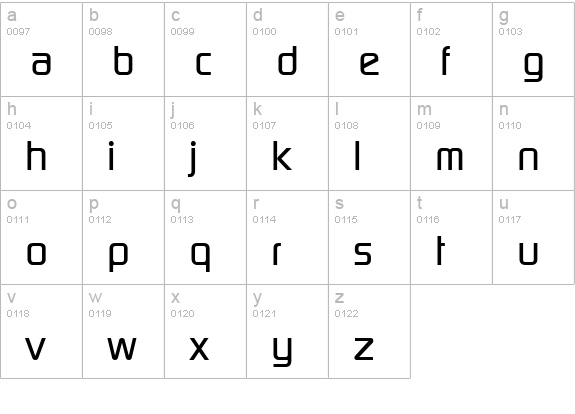
TQF_PCMedium Font Details
TQF_PCMedium is a versatile and stylish font that combines elegance with a modern twist. Its sleek and clean lines make it perfect for a wide range of design projects, from logos and branding materials to website headers and social media graphics. This font features a medium weight, striking the perfect balance between boldness and subtlety. Its letterforms are carefully crafted, with smooth curves and sharp edges that give it a contemporary and sophisticated look. One of the best things about TQF_PCMedium is that it is available for free download at FontsMarket.com. This means that you can easily access and use this font without any cost, making it an excellent choice for both personal and commercial projects. Whether you're a graphic designer looking for a unique typeface to enhance your creations or a small business owner in need of a professional font for your marketing materials, TQF_PCMedium has got you covered. Its versatility and timeless appeal make it a go-to option for anyone seeking a font that effortlessly combines style and legibility. So why wait? Discover the beauty and functionality of TQF_PCMedium by downloading it for free at FontsMarket.com today!